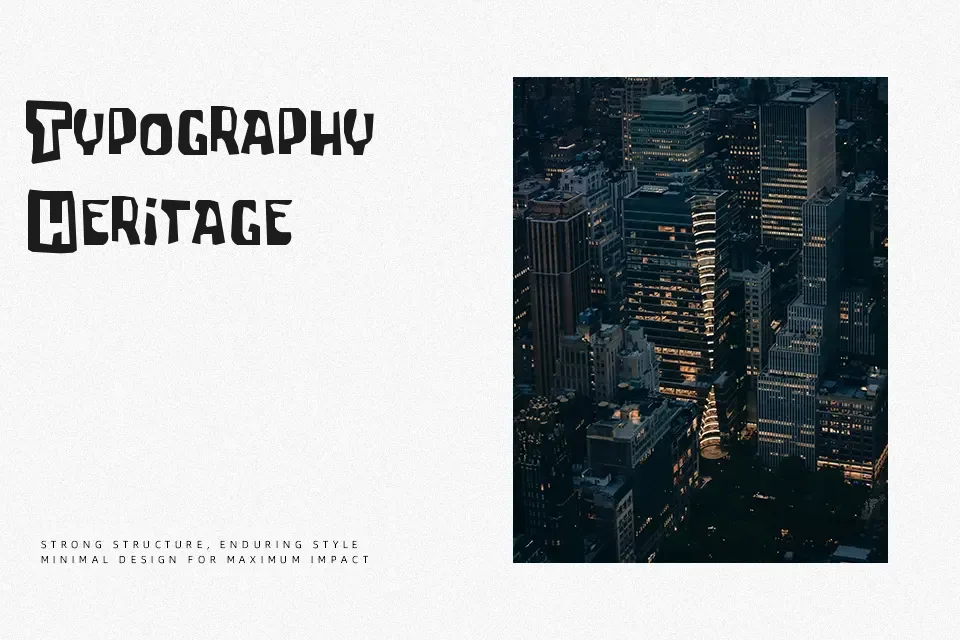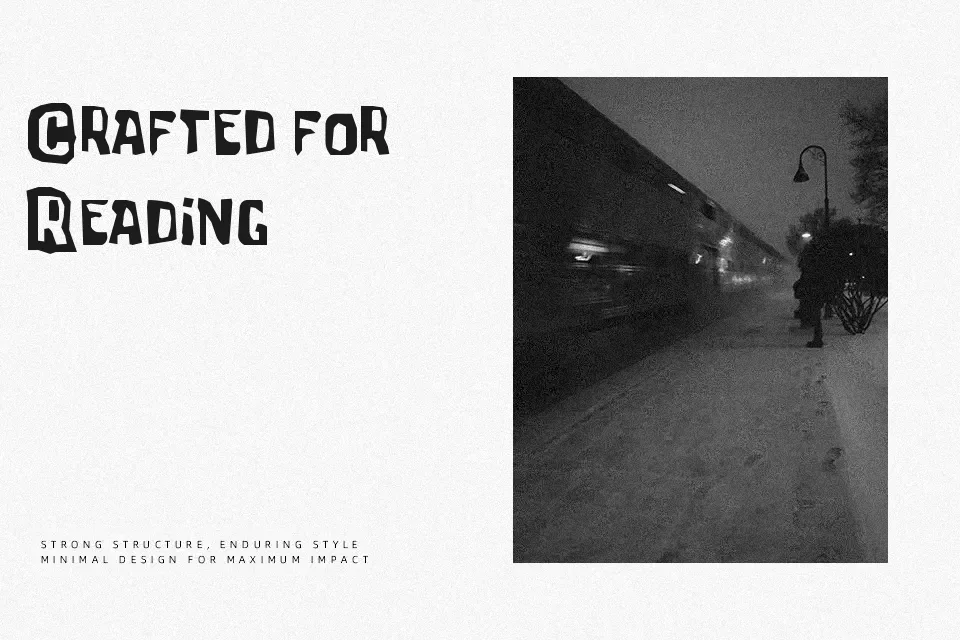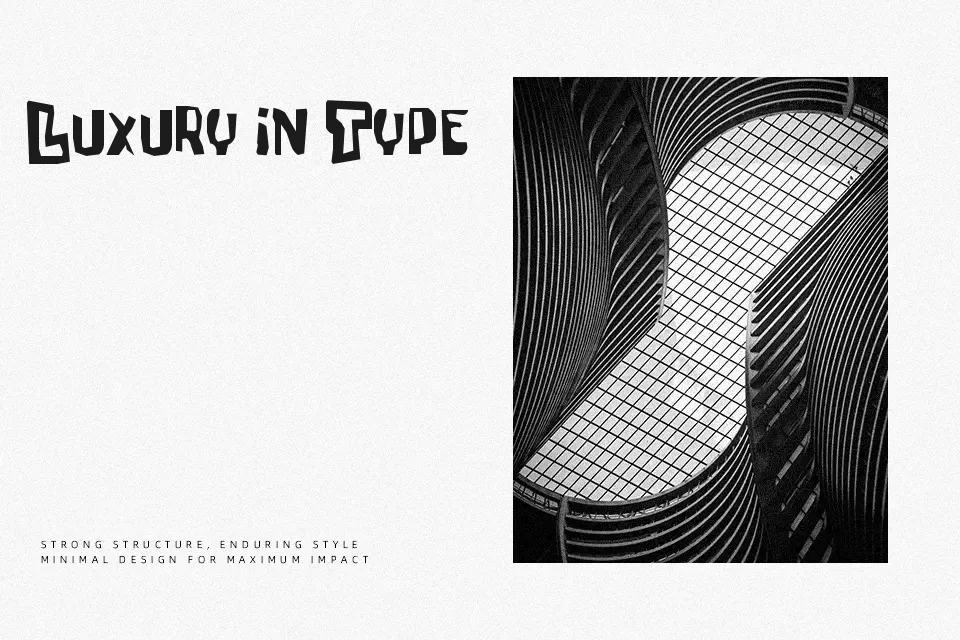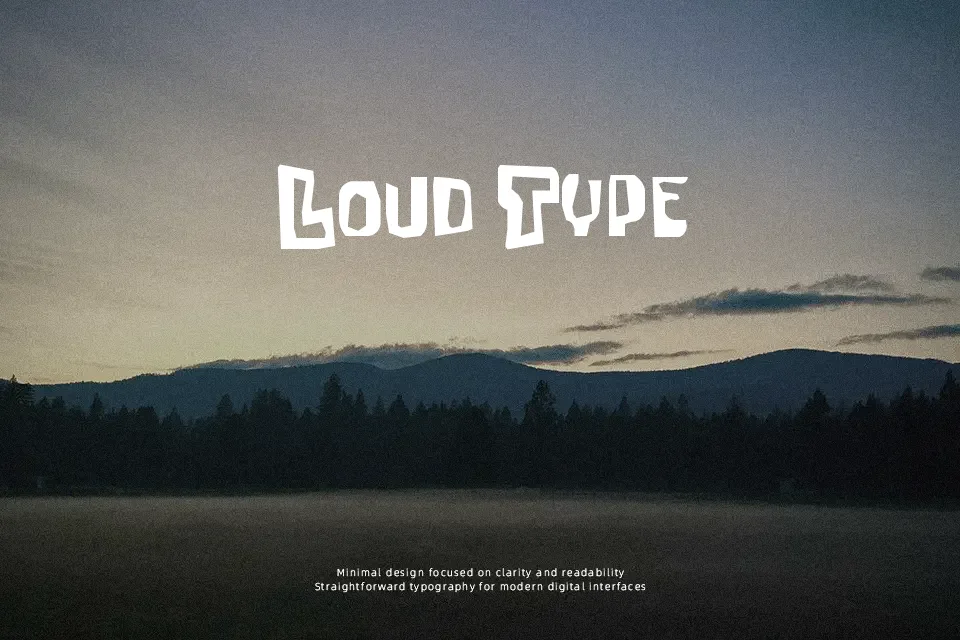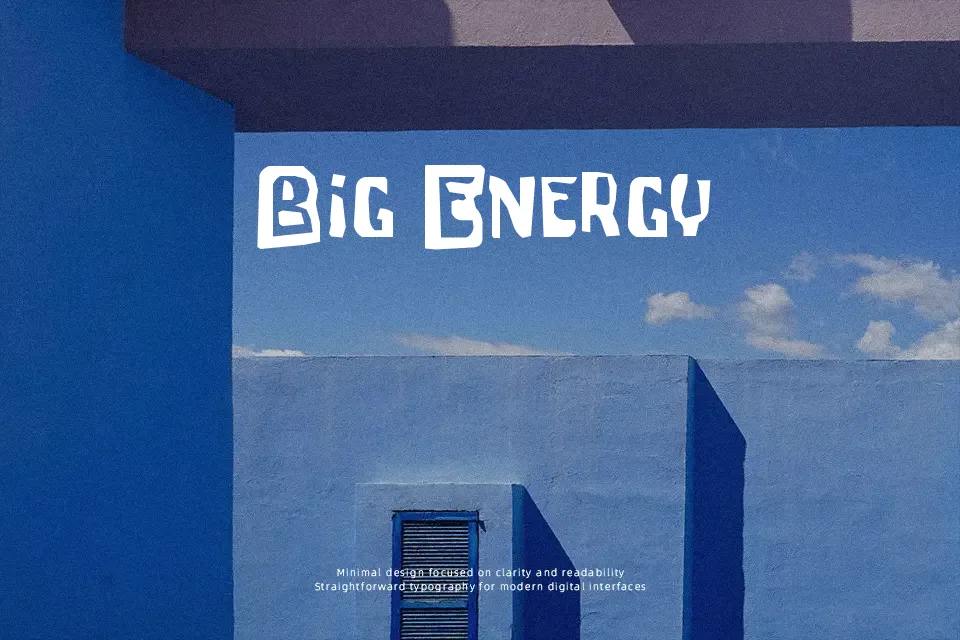
Tartarsauce Erc Font
Designed by The Space Wanderer
Tartarsauce Erc Font is a lively cartoon display typeface characterized by heavy, asymmetric strokes and flared, dynamic silhouettes. Its chunky, organic contours create an upbeat visual rhythm, while the tight spacing and bold weights ensure strong graphic impact in prominent titles. Proportions lean wide and whimsical, keeping uppercase letterforms instantly recognizable across bold poster layouts and video game assets. However, these exaggerated contours and tight counters reduce legibility in continuous text blocks, making the typeface far less effective for body copy or fine print. It functions best as an expressive accent where maximum character and playful presence take precedence.
– animated game titles
– children’s book headlines
– novelty food packaging
– cartoon event posters
– continuous body paragraphs
– corporate financial documents
– mobile app interface labels
– dense technical tables